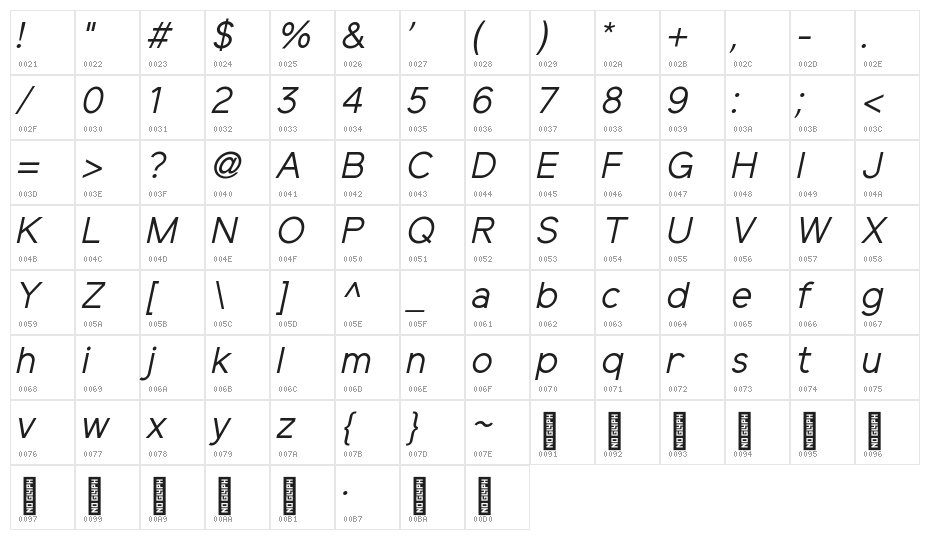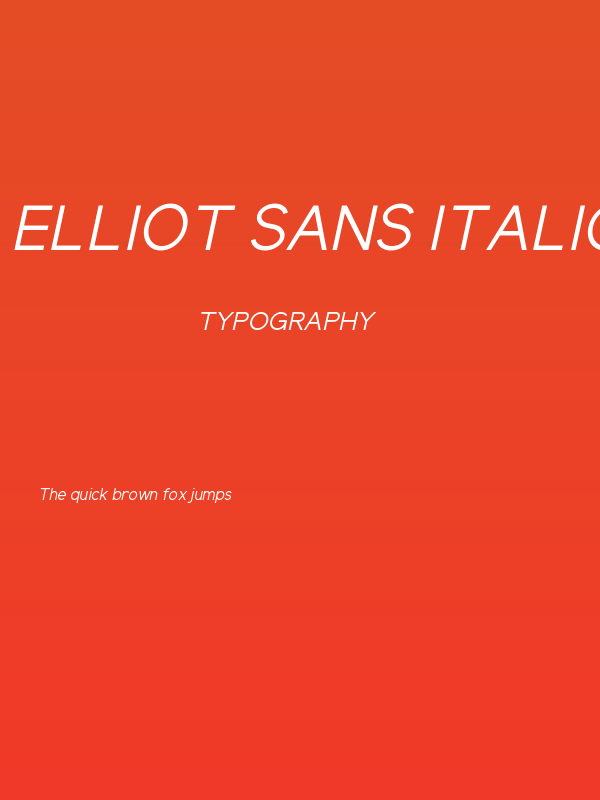
Elliot Sans Italic Font
Elliot Sans Italic Description
This font exhibits a sleek and modern sans-serif style with a subtle italic slant, giving it a dynamic and forward-moving appearance. The characters are clean and well-defined, with a consistent stroke width that contributes to its contemporary look. The uppercase letters are slightly taller than average, providing a sense of elegance and sophistication. The lowercase letters maintain a harmonious balance with the uppercase, ensuring readability and aesthetic appeal. The numerals are clear and distinct, making them suitable for various applications. Special characters are designed with the same attention to detail, ensuring they blend seamlessly with the overall font style.